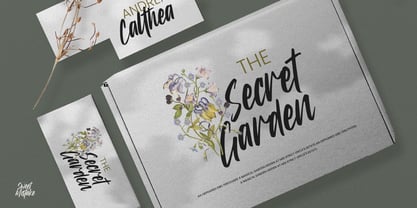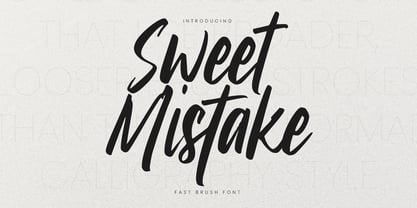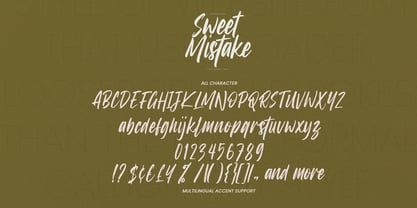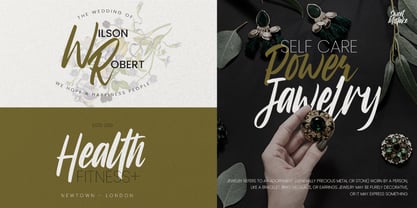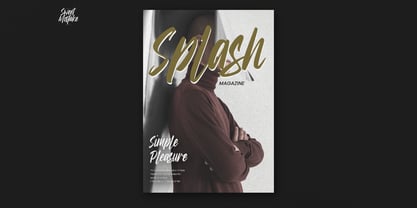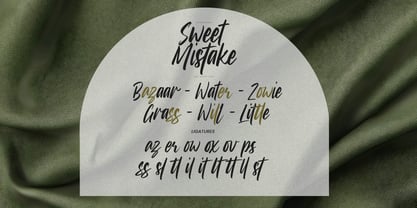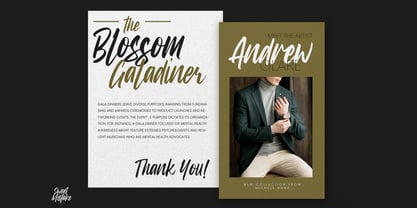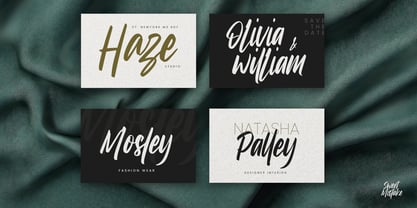
Sweet Mistake
von Gassstype
Die Schriftfamilie Sweet Mistake wurde von Abdul Malik Wisnu entworfen und von Gassstype veröffentlicht. Sweet Mistake enthält 1 Stile. Mehr über diese Familie
Introducing Sweet Mistake, a fast and expressive brush font characterized by bold strokes, natural movement, and a handmade feel. Its energetic letterforms infuse personality into logos, posters, packaging, apparel, social media, album covers, and branding. This font is perfect for creative projects that require a bold, stylish, and expressive handmade touch, ensuring your words stand out beautifully.
Designer: Abdul Malik Wisnu
Foundry: Gassstype
Based in Ambarawa - Semarang, Indonesia, and established in 2020 by Anang Fibriyanto and Malik Wisnu, Gassstype Studio is a foundry that builds tools and types, basically to show and promote his typefaces. He began designing fonts as a hobby in 2017 and specialized in kinds of brush fonts considered more useful and durable with a particular focus on creating easy and clever solutions for designers. Other than fonts, we love any form of creativity, photography, brush lettering, and more